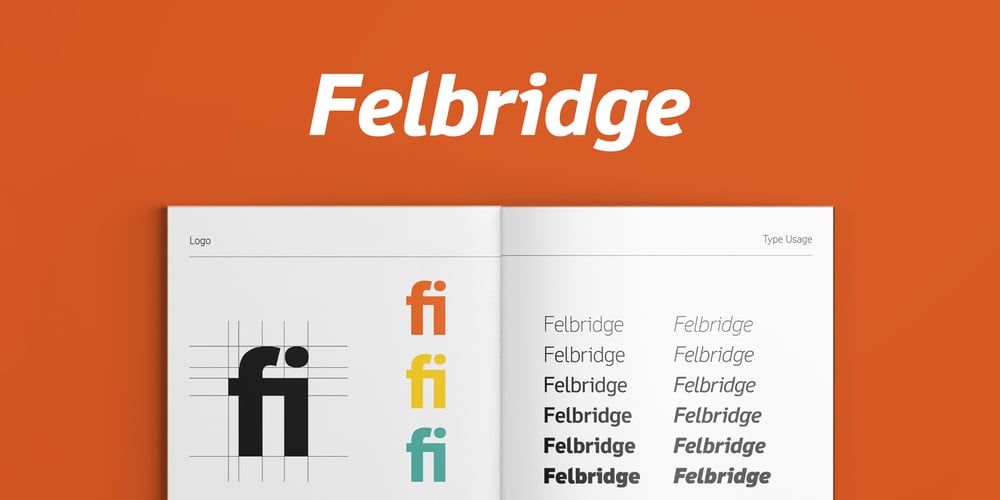
Felbridge Font Family was designed by Robin Nicholas and published by Monotype. Felbridge contains 12 styles and family package options. The impetus behind Felbridge was both ambitious and highly practical: to develop an ideal online” typeface for use in web pages and electronic media. Robin Nicholas, the family’s designer, explains, “I wanted a straightforward sans serif with strong, clear letterforms which would not degrade when viewed in low resolution environments.” Not surprisingly, the design also performs exceptionally well in traditional print applications. In 2001, to achieve his goal, Nicholas adjusted the interior strokes of complex characters like the M and W to prevent on-screen pixel build-up and improve legibility. Characters with round strokes were drawn with squared proportions to take full advantage of screen real estate. In addition, small serifs were added to characters like the I, j and l to improve both legibility and readability. “The result,” according to Nicholas, “is a typeface with a slightly humanist feel, economical in use and outstanding legibility – even at relatively small point sizes.Most sans serif typefaces have italics based on the simple “sloped Roman” principle, but italic forms for Felbridge have been drawn in the tradition of being visually lighter than their related Roman fonts, providing a strong contrast when the italic is used for emphasis in Roman text. The italic letter shapes also have a slightly calligraphic flavor and distinctive “hooked” strokes that improve fluency.Felbridge is available in four weights of Roman – Light, Regular, Bold and Extra Bold – with complementary italics for the Regular and Bold designs. The result is a remarkably versatile typeface family, equally comfortable in magazine text copy or in display work for advertising and product branding. As a branding typeface, Felbridge works in all environments from traditional hardcopy materials to web design, and is even suitable for general office use. As part of a corporate identity, this no-nonsense typeface family will be a distinctive and effective communications tool.”Felbridge™ font field guide including best practices, font pairings and alternatives.